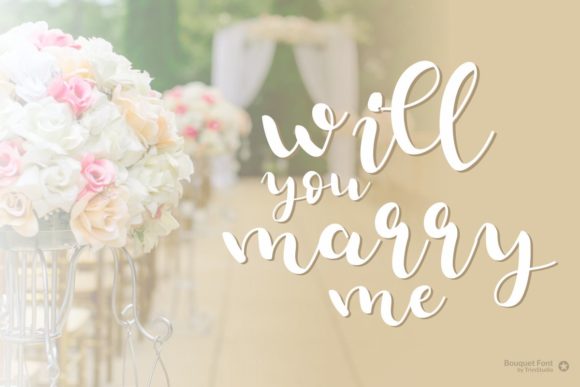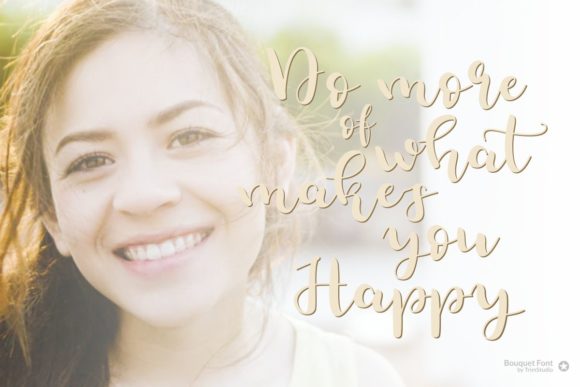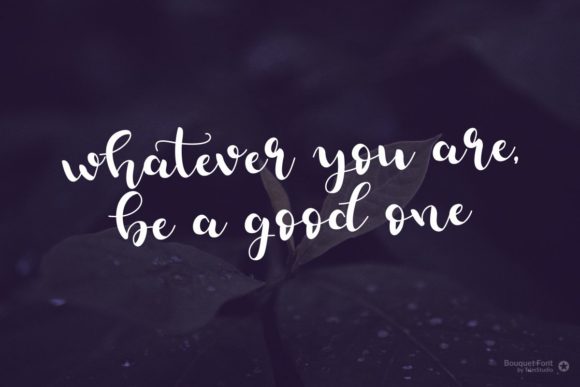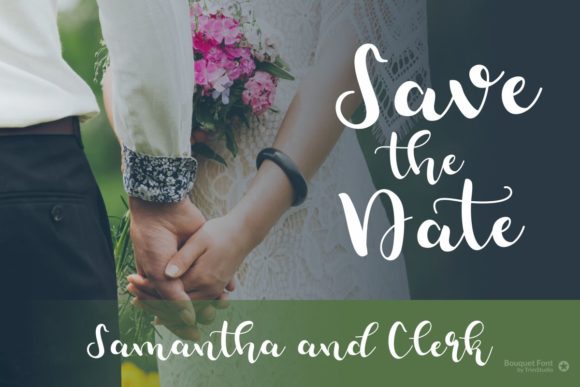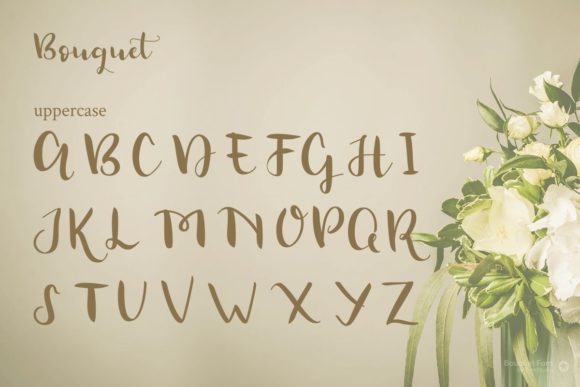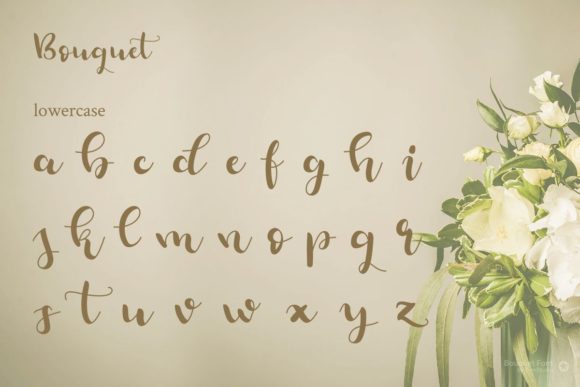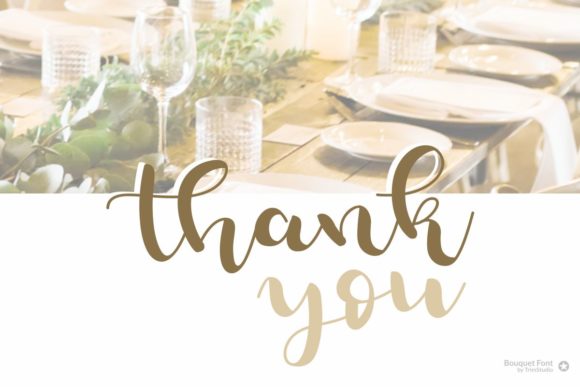
Bouquet Font
About Bouquet Font
Bouquet is a playful and gorgeous hand-written font. It’s perfect for logos, social media posts, quotes, invitations and much more!